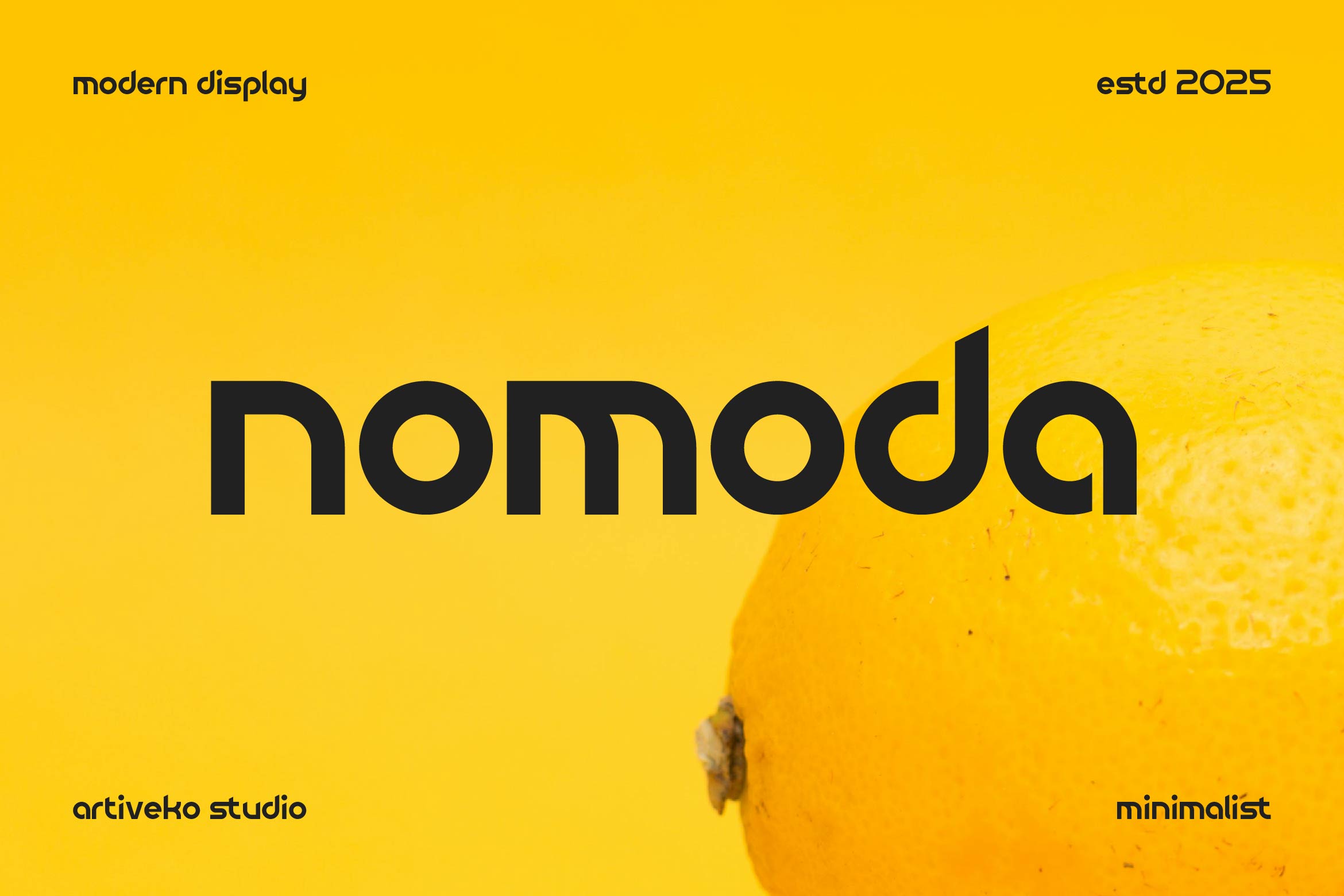
- Nomoda Creative Sans Serif Font
Nomoda is a sleek and contemporary sans serif font designed to bring clarity, balance, and elegance to your typography. Featuring smooth curves, geometric structure, and refined proportions, Nomoda is perfect for branding, editorial layouts, packaging, presentations, social media graphics, and digital interfaces that demand a modern, professional look.
Its versatile and minimalistic style ensures excellent readability, making it suitable for both bold headlines and refined body text. Ideal for tech companies, fashion brands, creative studios, and lifestyle projects, Nomoda adapts seamlessly across print and digital media.
The font includes uppercase and lowercase letters, numerals, punctuation, multilingual support, and stylistic alternates for added customization and creative flexibility.
Bring timeless modernity to your designs with Nomoda — the sans serif font that defines clean elegance and contemporary precision.